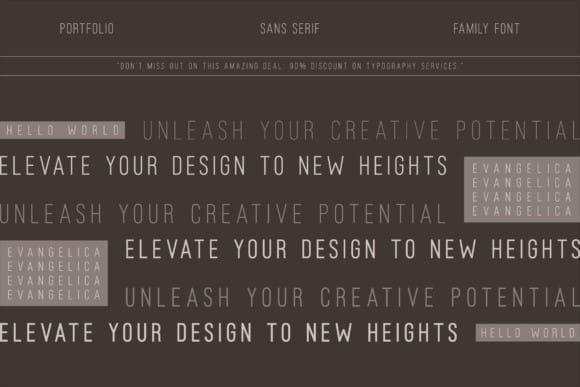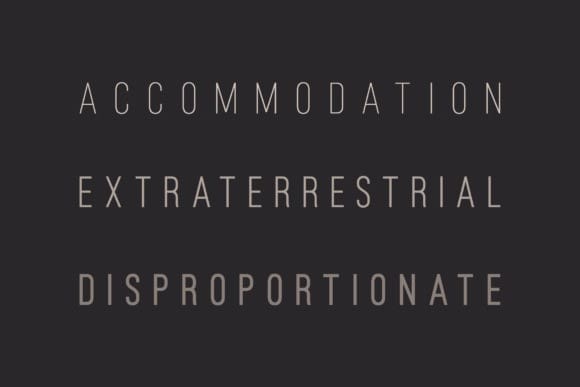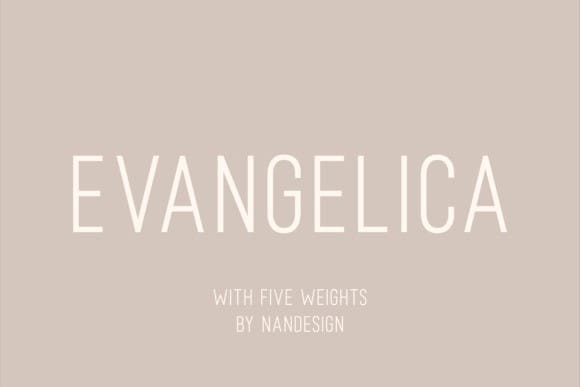
Evangelica Font Family
Evangelica Font Family, a meticulously crafted sans-serif font family that redefines modern design. Featuring 5 distinct weights, it offers unparalleled versatility, seamlessly adapting to projects ranging from magazines and logos to film posters and beyond. Designed with precision and an eye for detail, EvangelicaFont strikes the perfect balance between sophistication and simplicity, allowing your creations to exude timeless charm and contemporary luxury.
Transform your designs with Evangelica Font and unlock a new level of creativity.